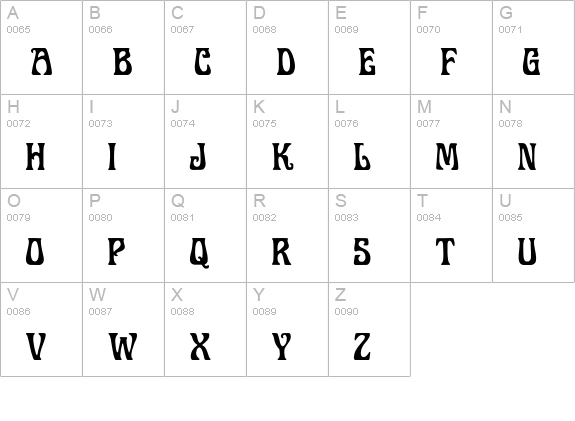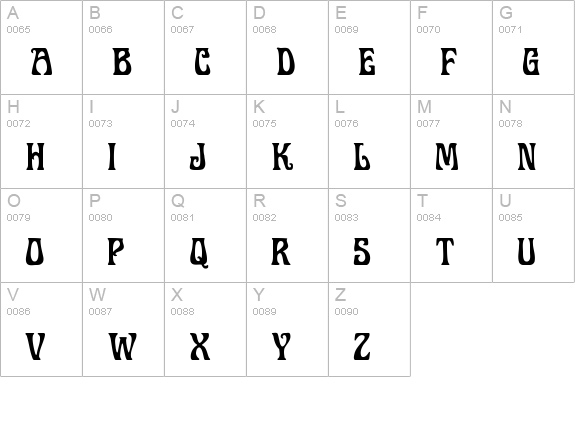
Legrand Font Details
Legrand font is a timeless and elegant typeface that exudes sophistication and charm. With its clean lines and classic design, this font is perfect for a wide range of projects, from branding and logo design to invitations and editorial layouts. Whether you're working on a modern or traditional project, Legrand font will add a touch of refinement and professionalism. One of the best aspects of Legrand font is that it is freely available to download at FontsMarket.com. This means that designers and creatives can easily access this stunning font without any cost. It's a fantastic opportunity to enhance your design work without breaking the bank. Legrand font offers a variety of weights and styles, allowing you to customize your typography to suit your needs. Whether you prefer a bold and impactful look or a more delicate and subtle touch, this font has you covered. Its versatility makes it a perfect choice for a wide range of applications, and it will surely elevate any design project to the next level. The legibility of Legrand font is exceptional, making it easy to read even at smaller sizes. This is particularly important for projects that require clear and concise communication. Whether you're designing a website, creating a brochure, or crafting a poster, Legrand font ensures that your message is delivered effectively and beautifully. In addition to its aesthetic appeal and functionality, Legrand font is also highly versatile. It pairs well with other typefaces, allowing you to create unique and eye-catching combinations. Whether you're looking to create a bold and modern look or a more vintage and nostalgic feel, Legrand font can be seamlessly integrated into your design. Overall, Legrand font is a must-have for designers and creatives who seek a high-quality, versatile, and free font. Its timeless elegance and professional appeal make it a go-to choice for a wide range of projects. Download Legrand font from FontsMarket.com today and unlock endless design possibilities.